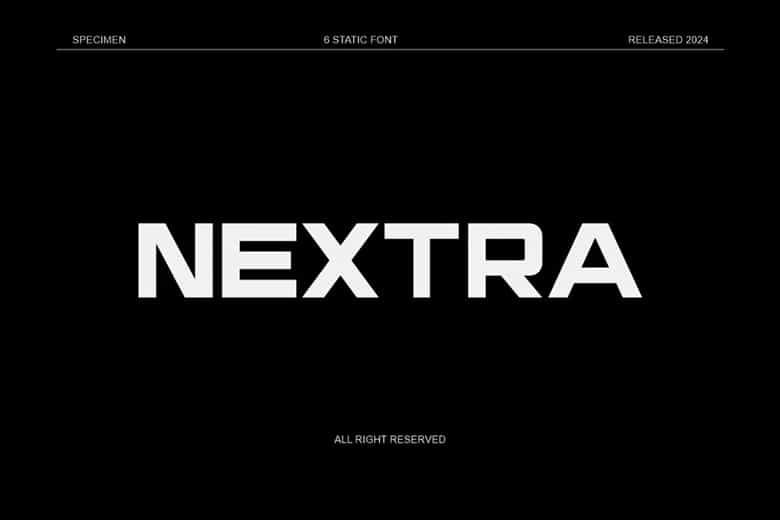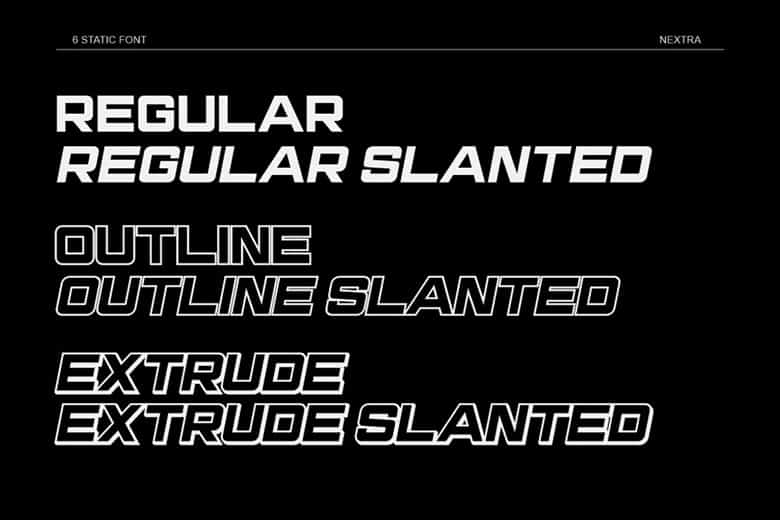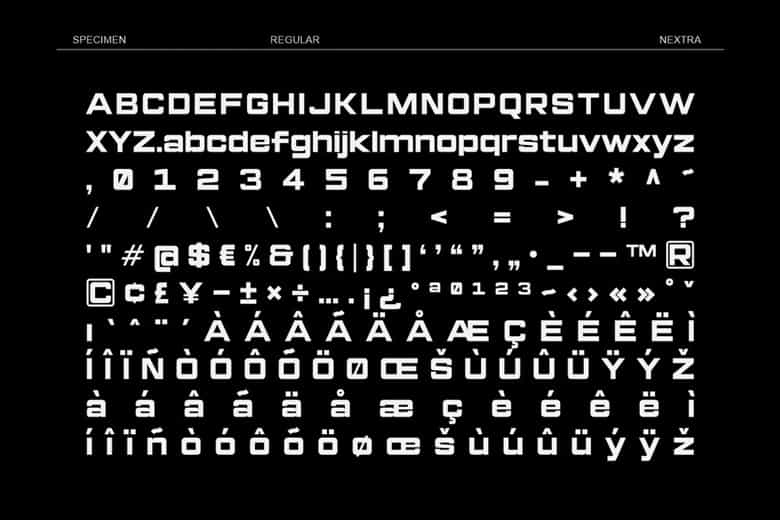
Nextra could be described as a sans-serif typeface for sport and technology oriented project should reflect such values as muscularity, velocity, and contemporaneity. This font is extremely modern with straight lines thus will be suitable to represent the world of sports which is ever very dynamic and also to embrace the technological advancement. It is has various uses as it can be incorporated into sports logos for a team, technology firm logos, as well as neat interfaces and great marketing materials.